Great graphic design is powered by great font selection. But picking great fonts is a challenge most people. Luckily, Canva has made adding great fonts to your designs much easier. In this tutorial, our team of design experts will cover the best bold fonts in Canva.
What is a Bold Font?
Bold style fonts are fonts that are designed to have a strong, prominent, and commanding feel. Some characteristics of bold style fonts include:
- Thick strokes: Bold style fonts have thick strokes that make them stand out and draw attention to the text.
- Strong lines: These fonts have strong and well-defined lines that give them a solid and impactful appearance.
- High contrast: Bold style fonts often have a high level of contrast between the thick and thin parts of the letters, which can create a striking and dynamic effect.
- Sans-serif or serif: Bold style fonts can be either sans-serif or serif, depending on the desired effect. Sans-serif fonts can convey a modern and clean feel, while serif fonts can give a more traditional and classic impression.
- Limited ornamentation: These fonts may have limited ornamentation or decorative elements, with a focus on simplicity and clarity.
- Versatile: Bold style fonts can be used in a variety of designs, from logos and branding materials to posters, packaging, and websites.
Best Bold Fonts in Canva
1. Lato Bold
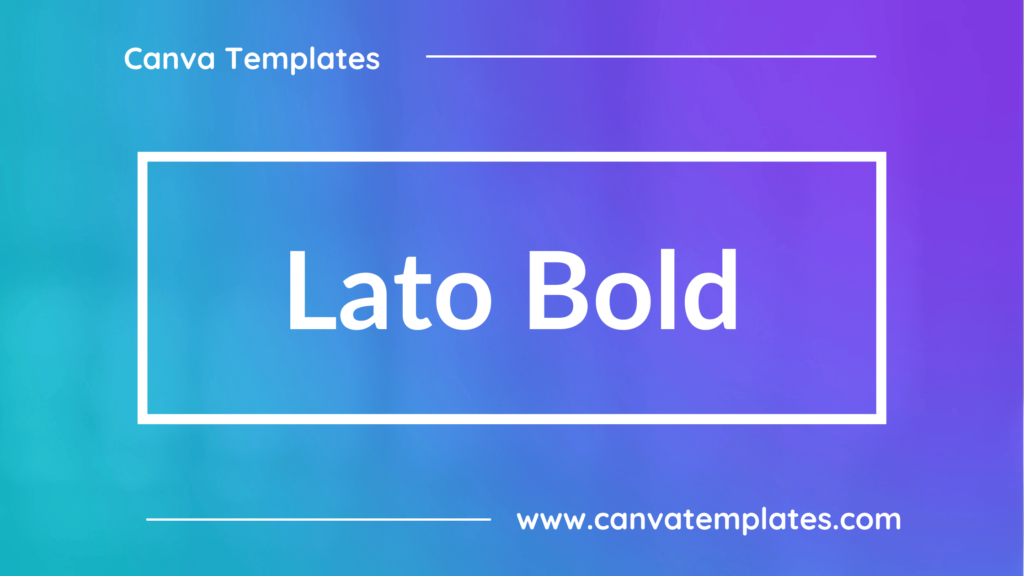
Lato Bold is a sans-serif font with a clean and modern design, featuring a bold weight that adds emphasis and impact to the text. Its versatility and legibility make it a popular choice for branding and UI design.
2. Anchorage Bold
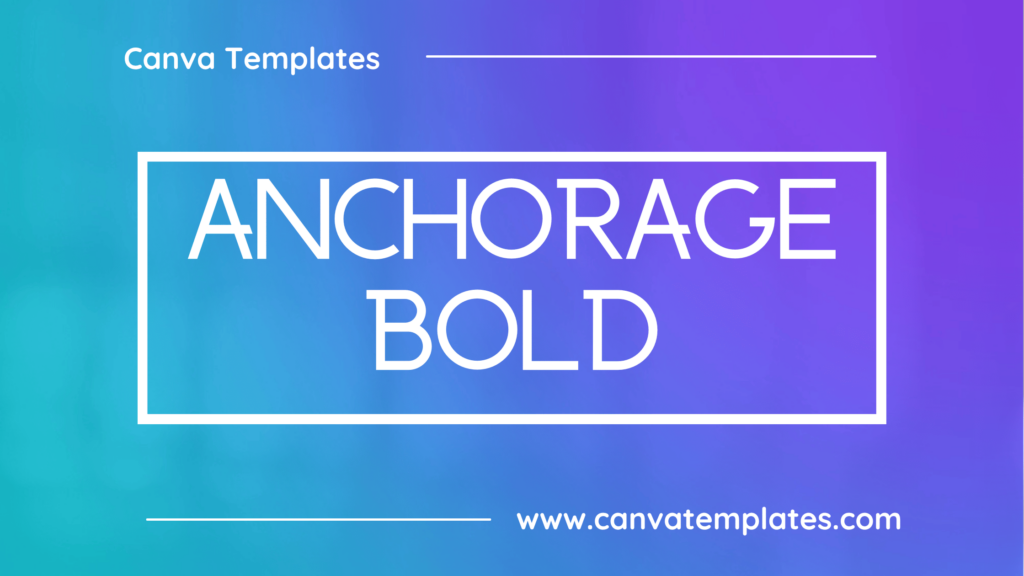
Anchorage Bold is a geometric sans-serif font with a bold weight and a minimalist design, characterized by simple shapes and sharp angles. Its modern appearance makes it suitable for a wide range of applications, from logos to web design.
3. Cerebri Bold
Cerebri Bold is a contemporary sans-serif font with a bold weight and a distinctive design, featuring elongated strokes and sharp angles. Its unique appearance makes it ideal for branding and editorial design.
4. Mont Bold
Mont Bold is a sans-serif font with a clean and elegant design, featuring a bold weight that adds emphasis and impact to the text. Its classic appearance and legibility make it a popular choice for a variety of design projects.
5. Muller Bold
Muller Bold is a geometric sans-serif font with a bold weight and a minimalistic design, characterized by simple shapes and clean lines. Its versatility and legibility make it suitable for both digital and print applications, such as branding or editorial design.
6. Panton Bold
Panton Bold is a display font with a bold weight and a modern design, featuring clean lines and geometric shapes. Its versatile appearance makes it suitable for a wide range of applications, from branding to packaging design.
7. Code Pro Bold
Code Pro Bold is a monospaced font with a bold weight and a technical design, featuring uniform strokes and clean lines. Its legibility and unique appearance make it a popular choice for coding and programming environments.
8. Intro Pro Bold
Intro Pro Bold is a display font with a bold weight and a distinctive design, featuring a combination of modern and vintage elements. Its bold appearance makes it ideal for titles, headlines, and branding.
9. Bugaki
Bugaki is a decorative font with a unique and whimsical design, featuring irregular lines and playful shapes. Its charming appearance makes it a great choice for designs that require a fun and creative touch, such as invitations or children’s books.
10. Lot
Lot is a sans-serif font with a modern and minimalist design, featuring a bold weight that adds emphasis and impact to the text. Its versatility and legibility make it a popular choice for web design and branding.